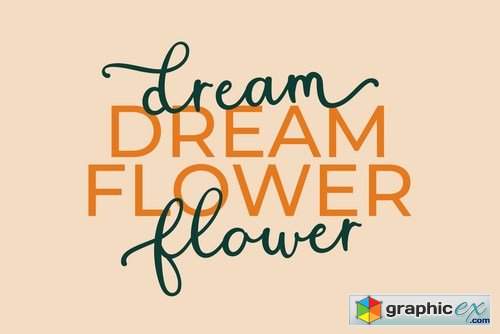
Rebil Script
Rebil is a modern script calligraphy fonts. It is clean, feminine and friendly also fashionable. Rebil Script will work perfectly for fashion, e-commerce brands, trend blogs, tagline, title, holiday poster, logos, nametags, wedding cards, invitations, signboards, wedding sign, birthday card, t-shirt design and print, etc.